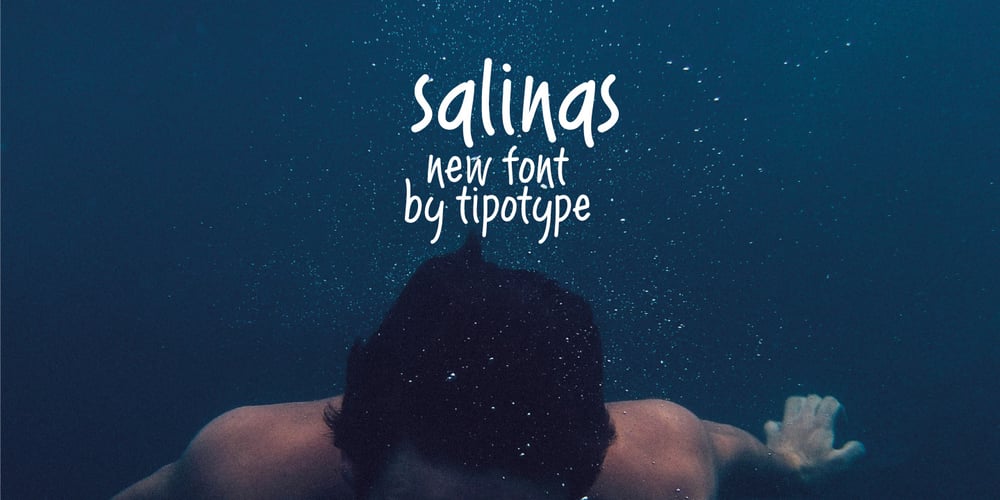
Salinas Font Family was designed by Fernanda Núñez and published by TipoType. Salinas contains 1 styles and family package options. Salinas imitates a friendly and warm handwritten typeface. Its particular feeling is achieved thanks to several character variations, which can automatically alternate between three different (and complete) sets of characters, giving the font the proper character of hand writing, mixing: height, weight and inclination. Through its opentype programming, Salinas generates multiple character changes in the text, without losing its surprising legibility in various sizes. The added gestural strokes for titles enriches the spectrum of variants and versatility. Itís ideal for countless pieces of design that require warmth and spontaneity.